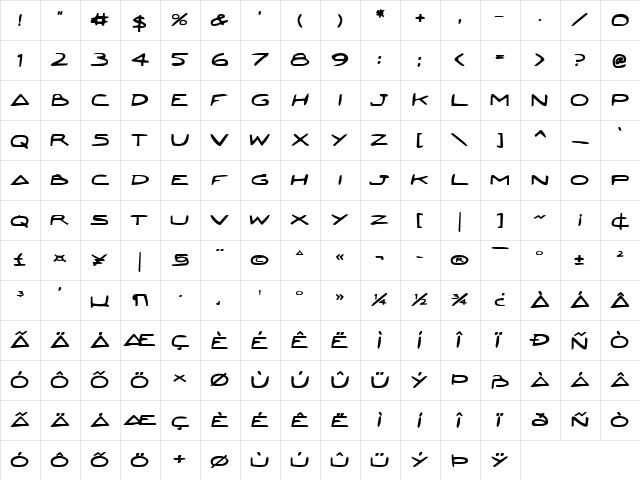
Jetta Bold Bold
| Designer | Dan Zadorozny |
Design Context for Jetta Bold Typeface
Jetta Bold is a composed and adaptable typeface that performs quietly and consistently across a wide range of design contexts. Its bold stroke weight gives it real presence on the page.
Pro Tip: Use Jetta Bold in both headline and body roles to test its range before committing to a single application.